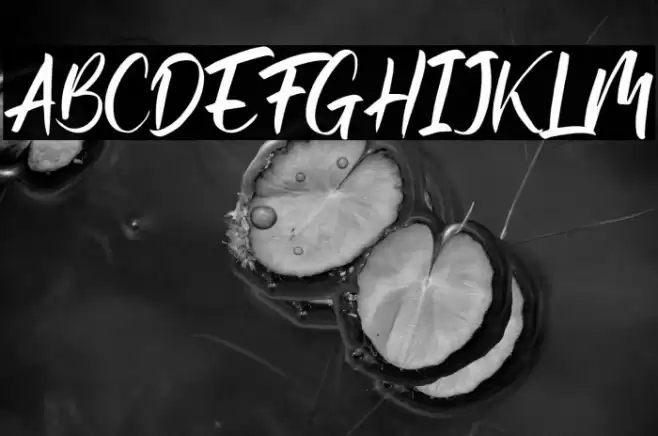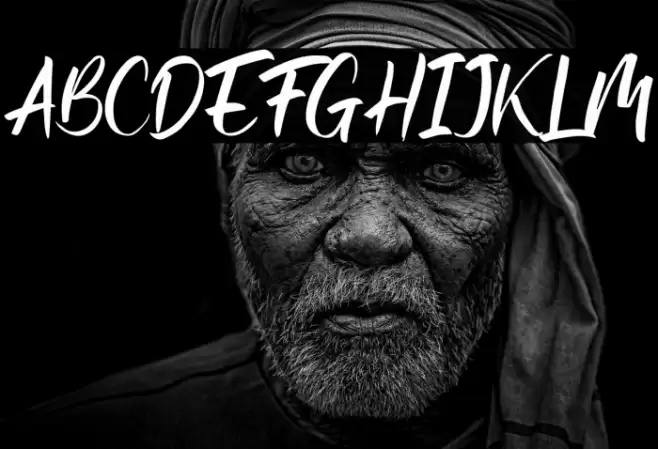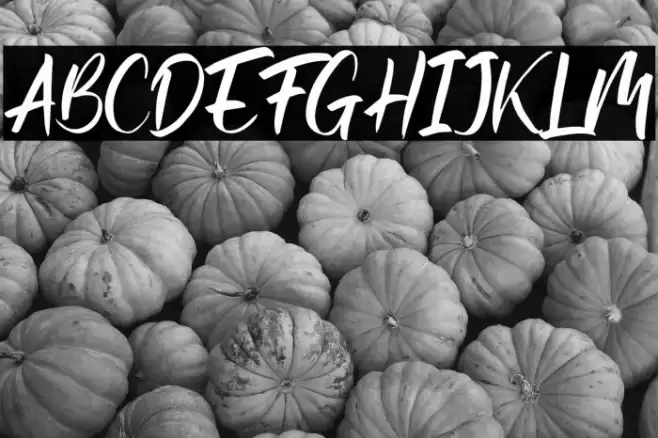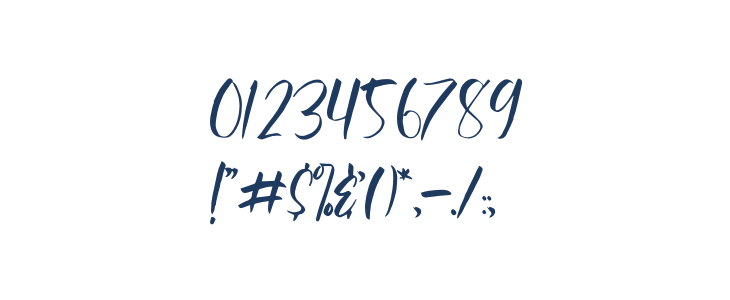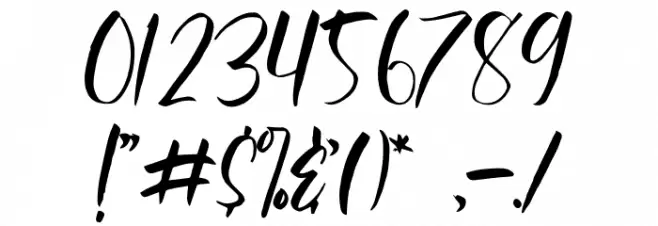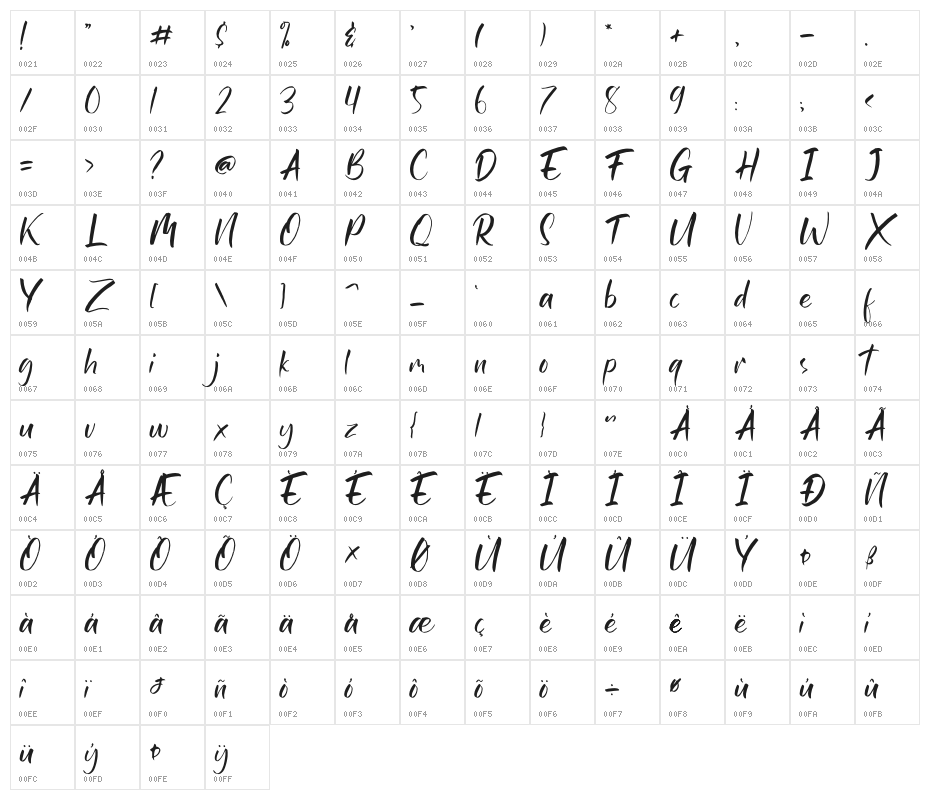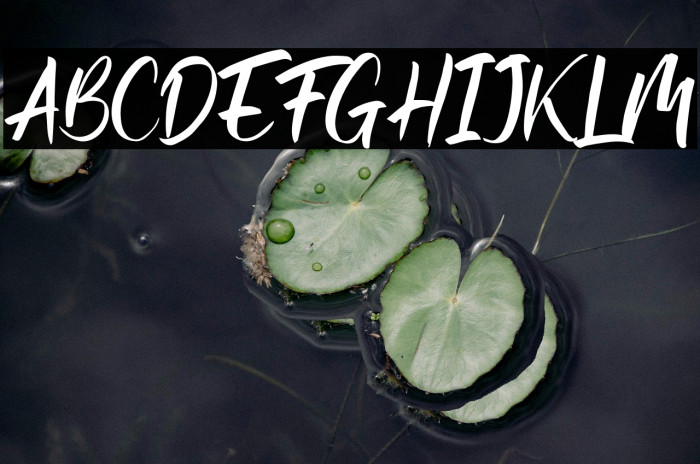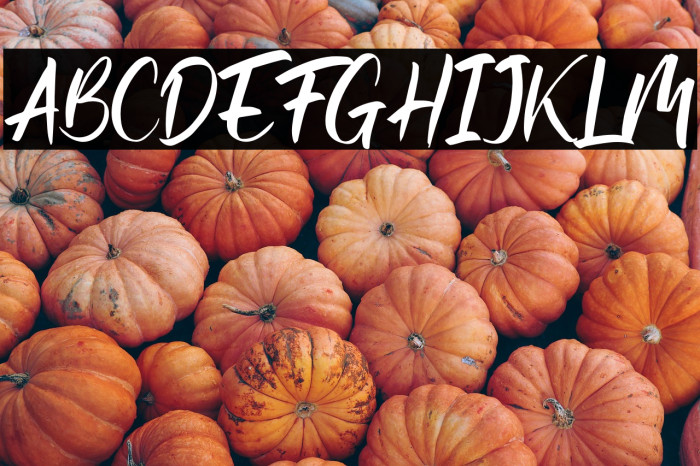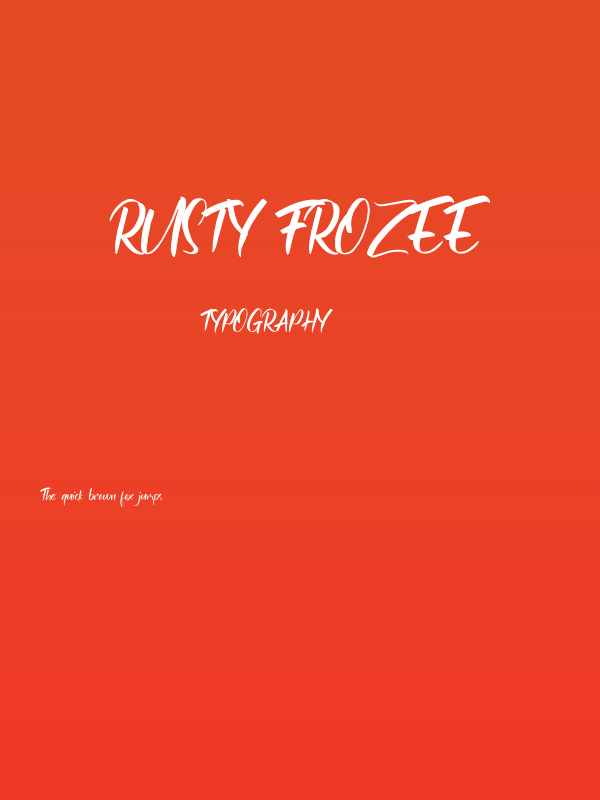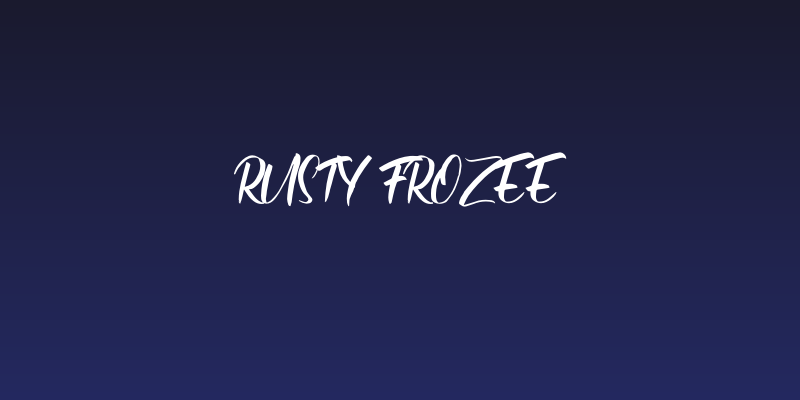
Rusty Frozee Font
Rusty Frozee Description
This font features a dynamic and expressive handwritten style, characterized by its fluid strokes and organic flow. The letters exhibit a sense of movement, with varying stroke widths that create a lively and energetic appearance. The uppercase letters are bold and assertive, while the lowercase letters maintain a more casual and approachable feel. The numerals and special characters are crafted with the same attention to detail, ensuring consistency throughout the typeface. This font's unique personality makes it ideal for projects that require a personal touch or a creative flair.
A dynamic handwritten font with fluid strokes and expressive style from Uncategorized fonts.
- Proposed Projects: Ideal for branding, invitations, greeting cards, and social media graphics.